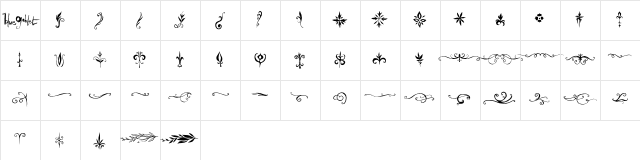
Blue Goblet Ornaments Regular Font Preview
Blue Goblet Ornaments Regular
Blue Goblet Ornaments Regular Font Details
| Foundry | Jeremy Dooley & Cory Godbey |
| Designer | Cory Godbey |
Design Context for Blue Goblet Ornaments Typeface
Blue Goblet Ornaments is built around its visual character rather than neutral utility — its distinctive forms are designed to make an impression at display sizes.
Font Pairing: Pair with a clean neutral sans-serif for body copy to let Blue Goblet Ornaments's character lead without overwhelming the composition.
Pro Tip: Use Blue Goblet Ornaments exclusively at display sizes — it was designed to be seen, not read at length. Let a neutral companion handle body copy.